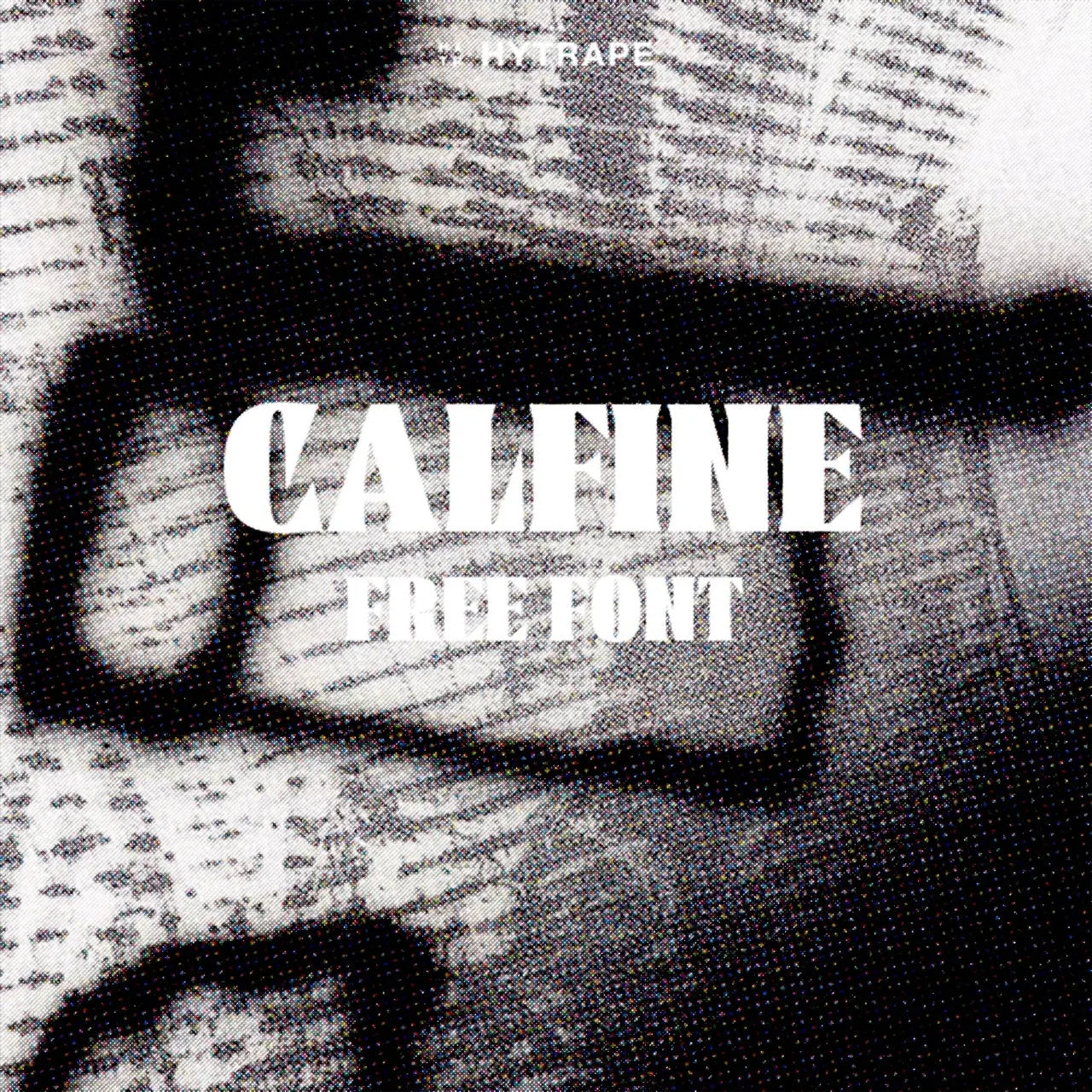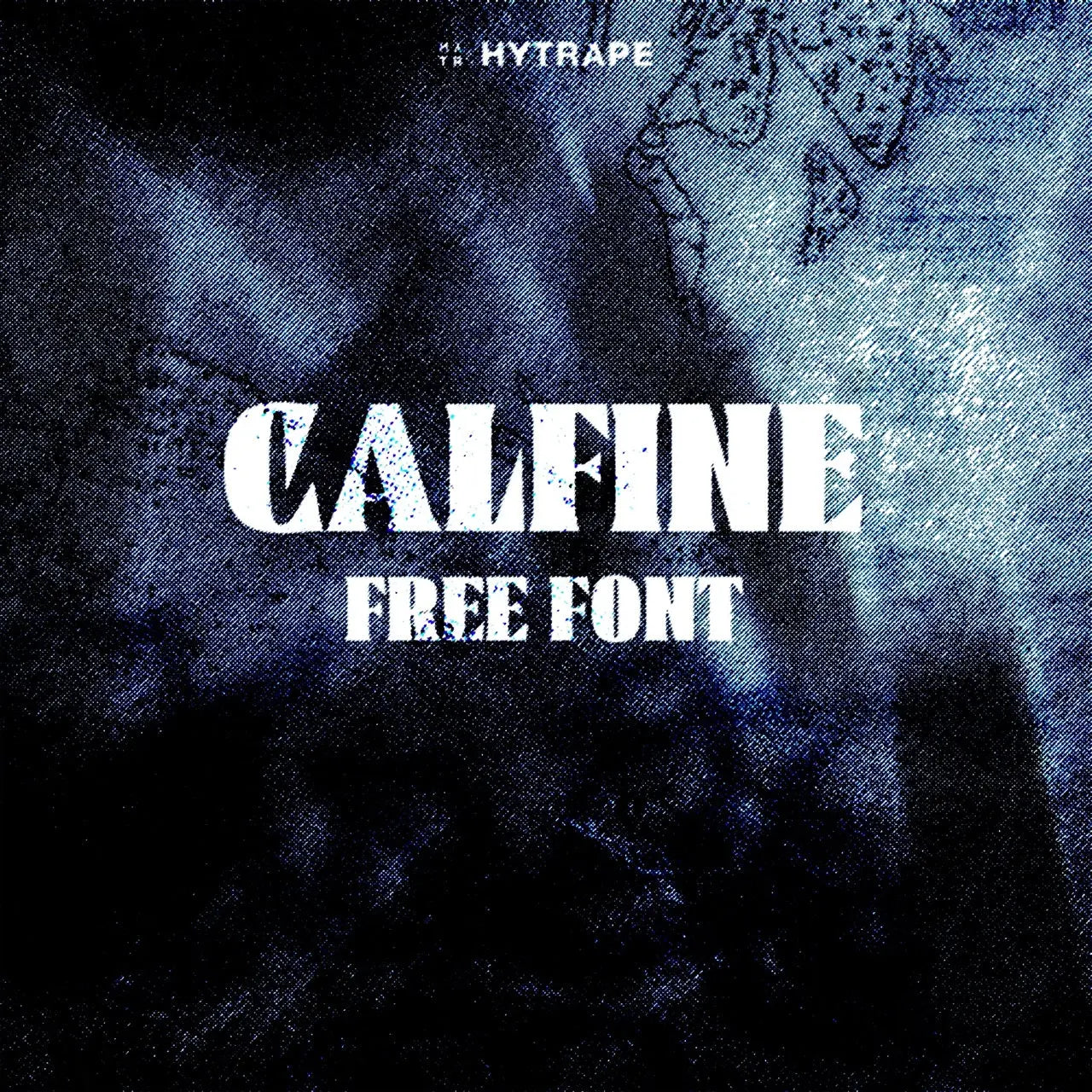
Calfine is a very heavy, condensed serif font in rugged capitals. It recalls the press and retro posters.
CALFINE FONT (FREE) is an experimental font designed for professionals looking for unique and original typography. Use it legally for your personal projects.Customer reviews